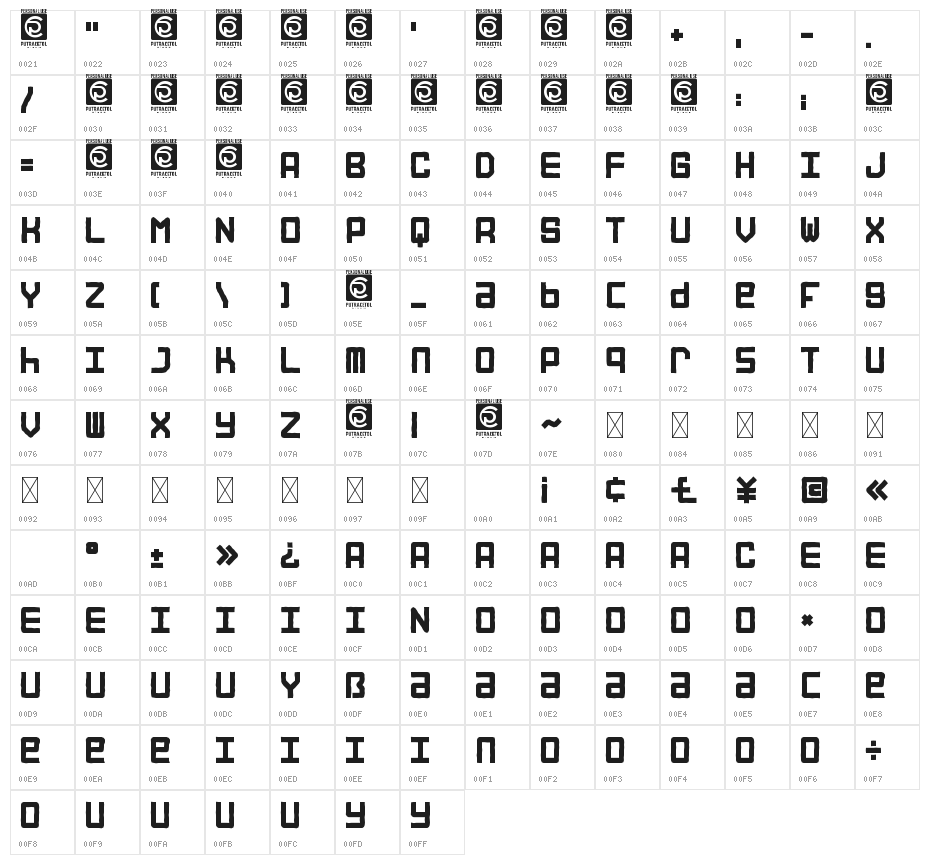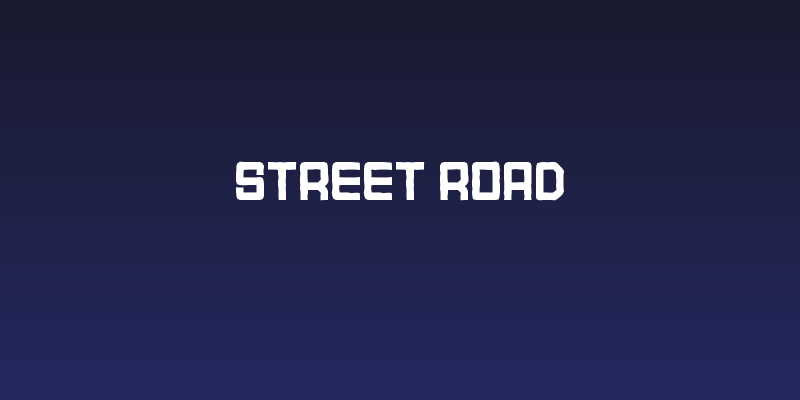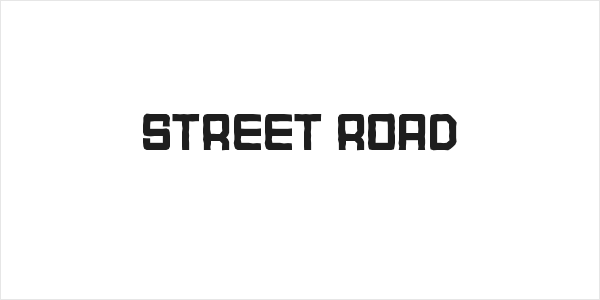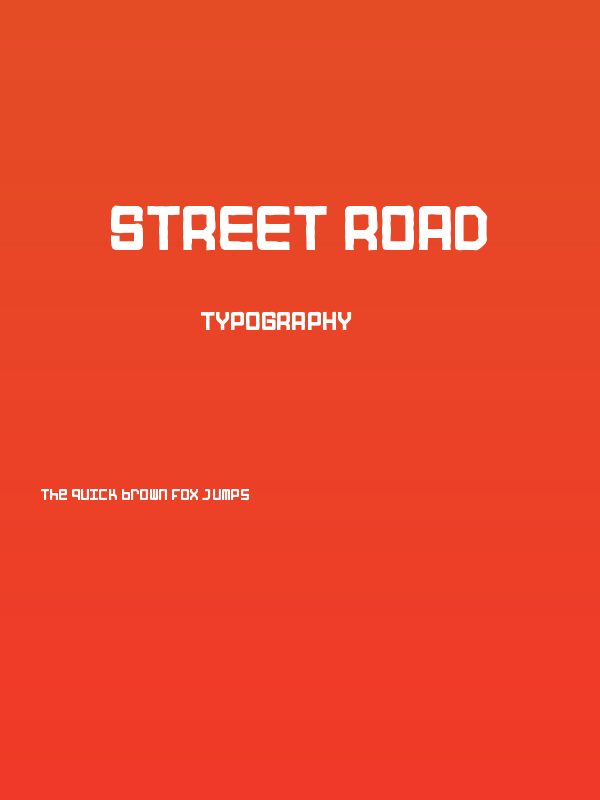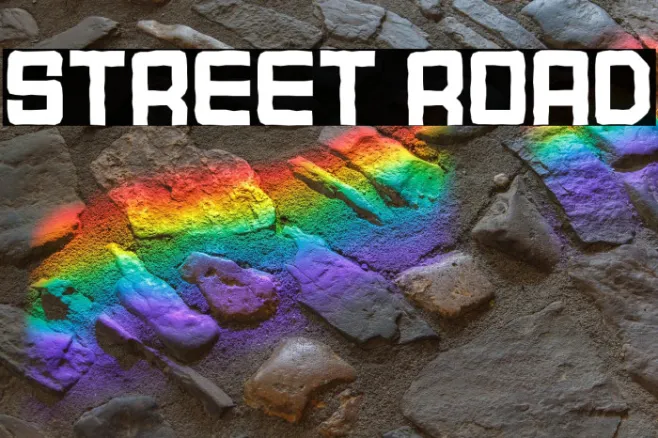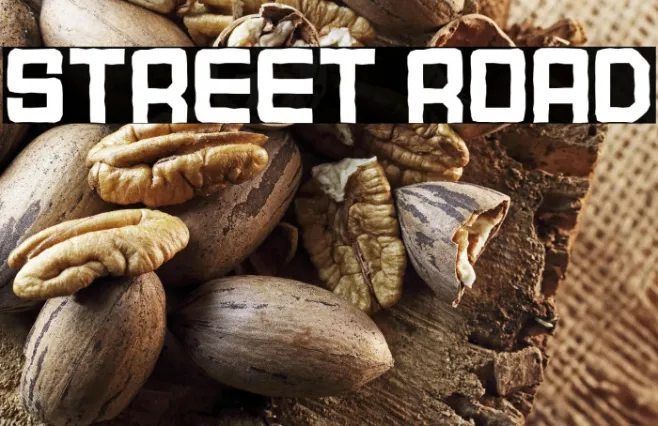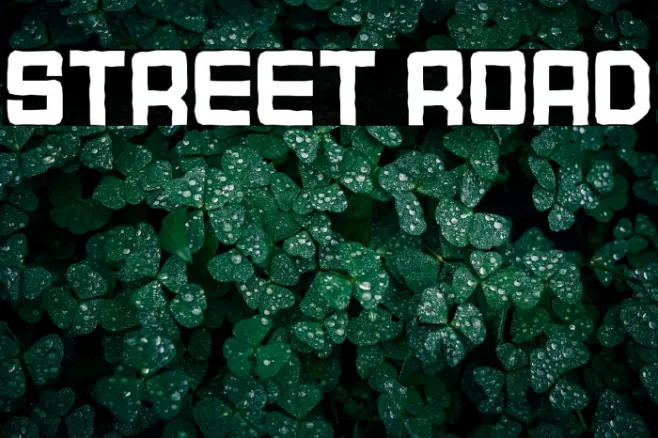
STREET ROAD Font
STREET ROAD Description
This font features a bold and rugged design, characterized by its thick, blocky letterforms and slightly distressed edges. The uppercase and lowercase letters maintain a consistent width, giving the font a uniform appearance. The numerals and special characters follow the same robust style, ensuring cohesion across all elements. This font's unique style is reminiscent of industrial or urban aesthetics, making it suitable for projects that require a strong, impactful visual presence. The overall look is both modern and slightly vintage, with a touch of grunge that adds character.
| Overall Style | Modern, Vintage, Industrial |
| Proposed Projects | Ideal for branding, posters, signage, and any project requiring a strong, urban aesthetic. |